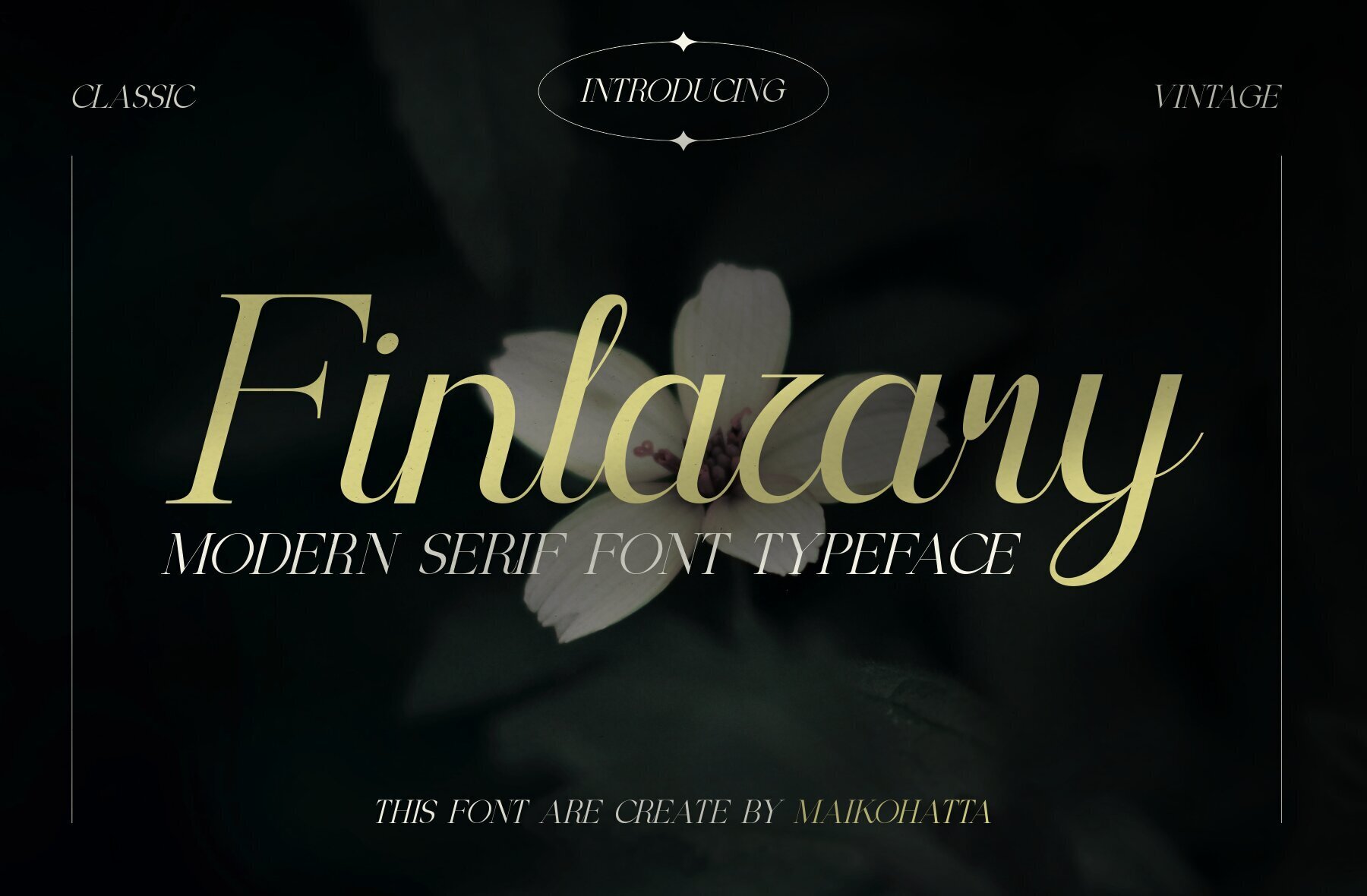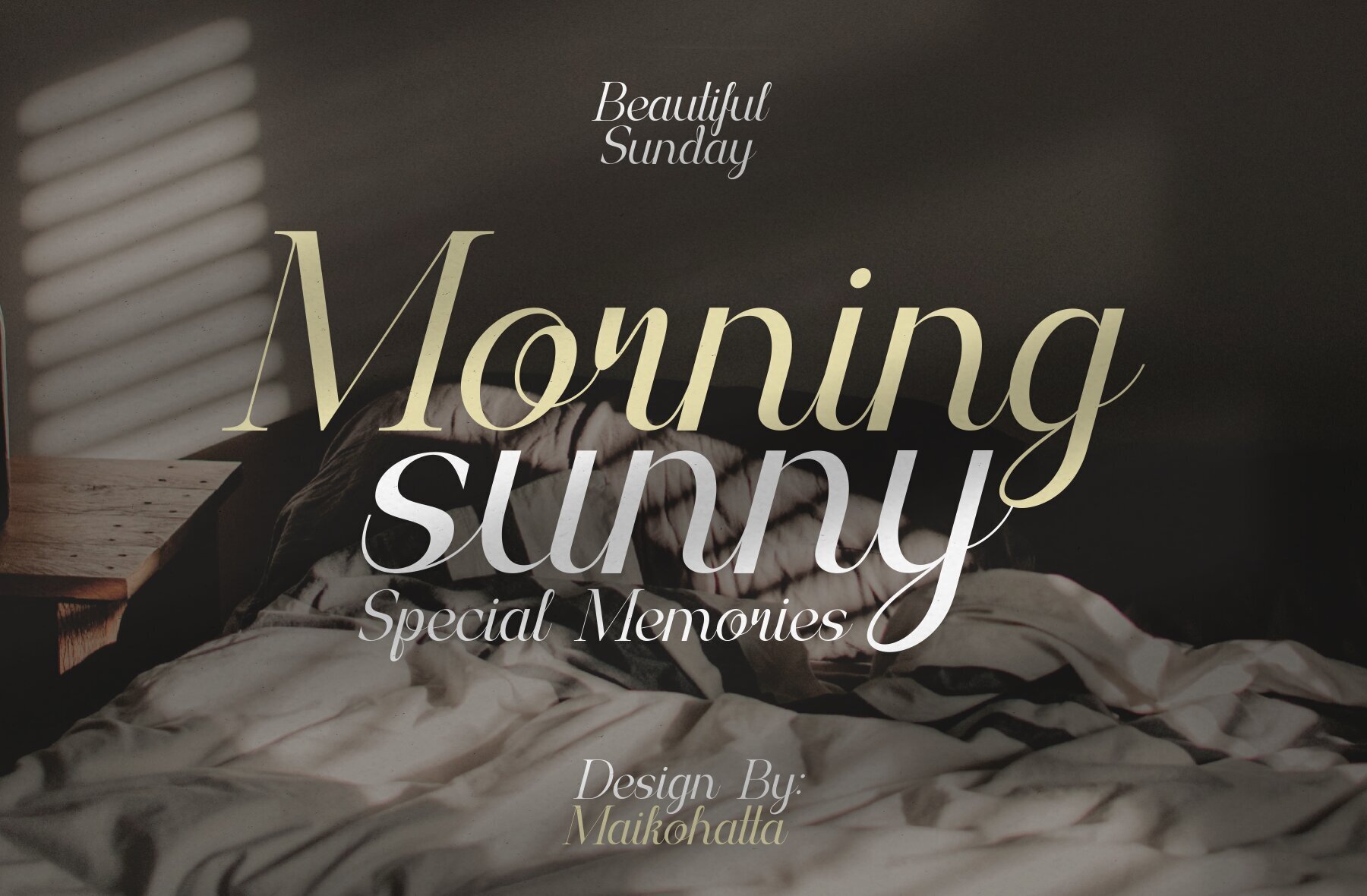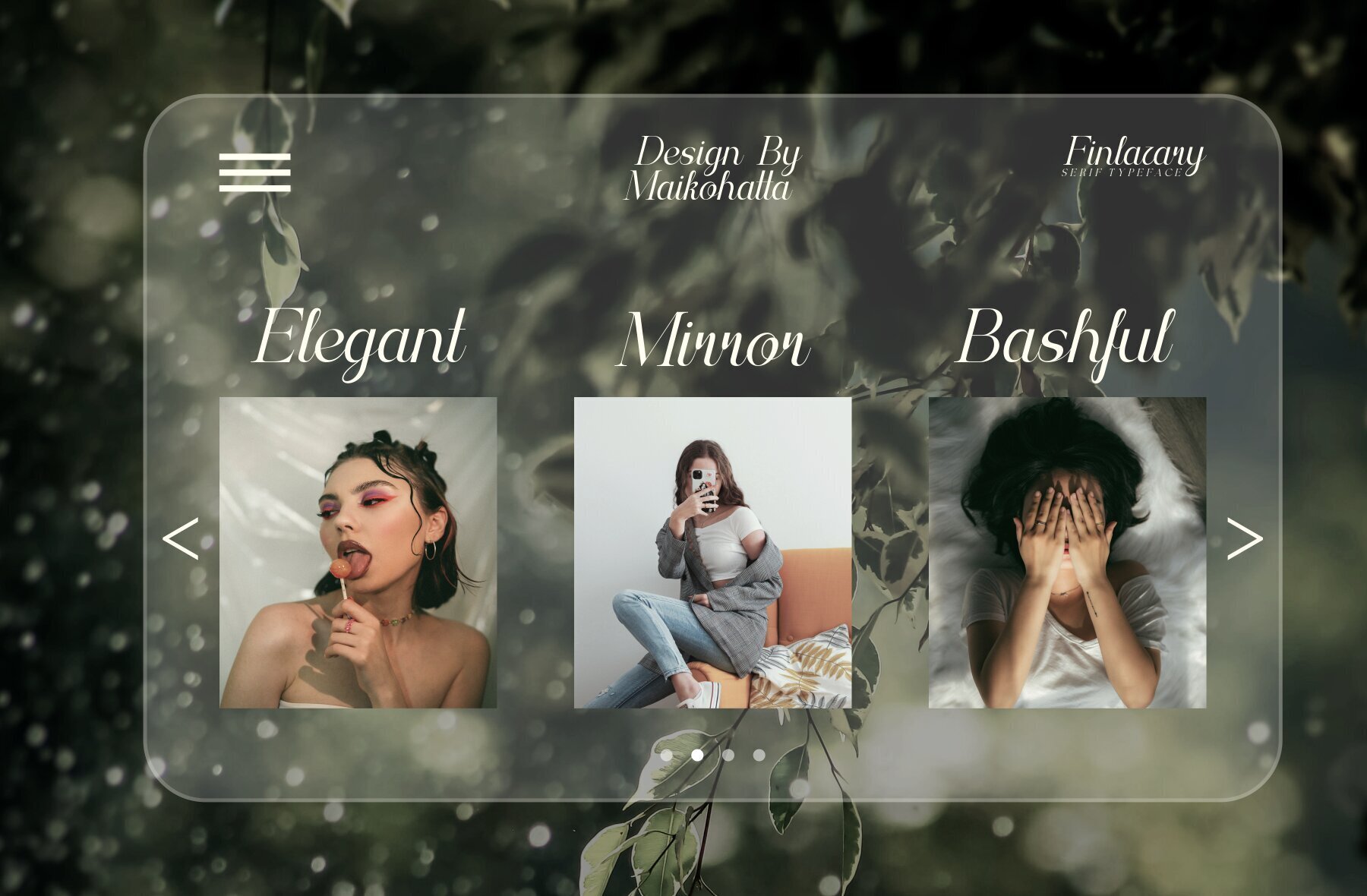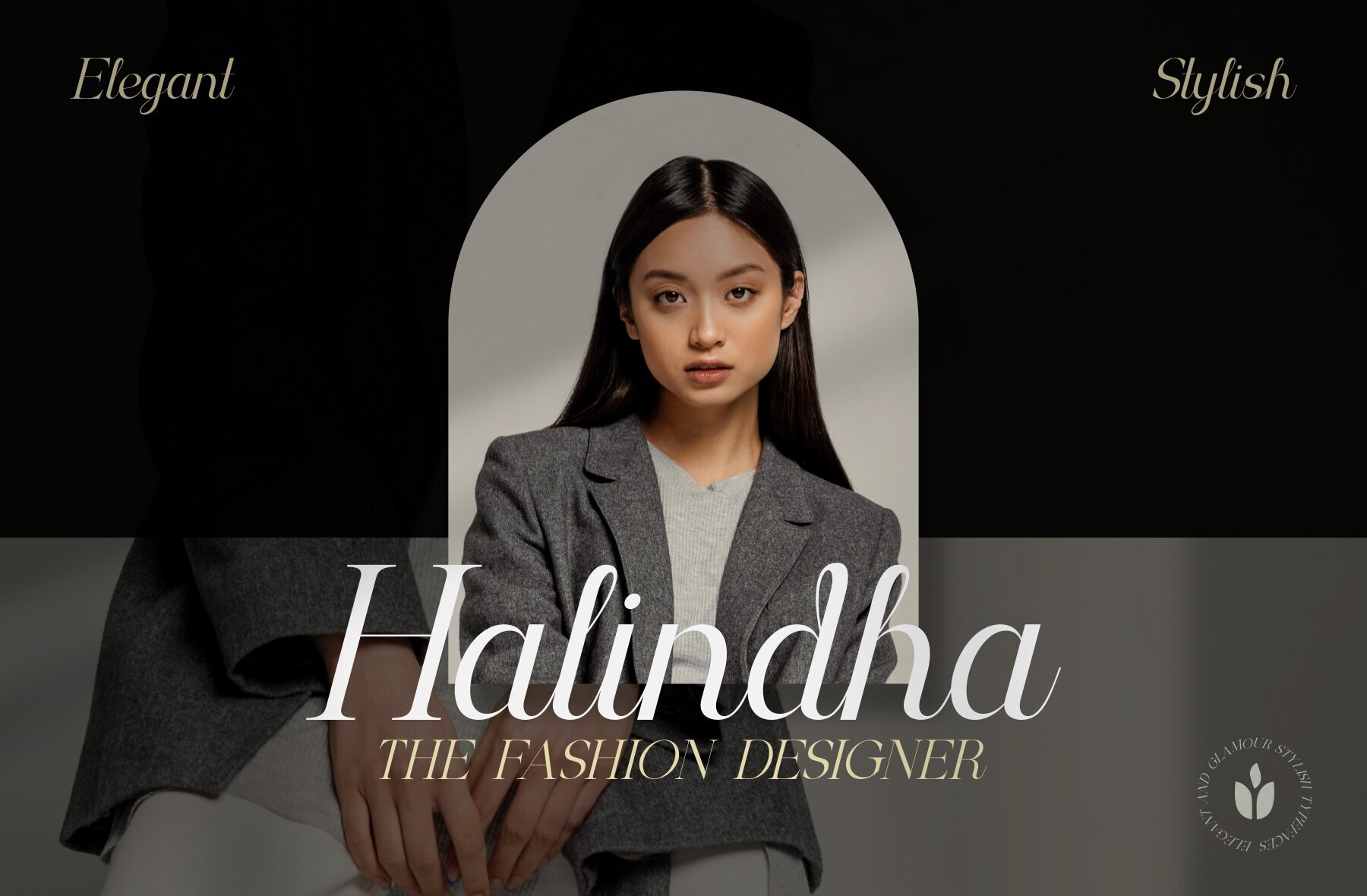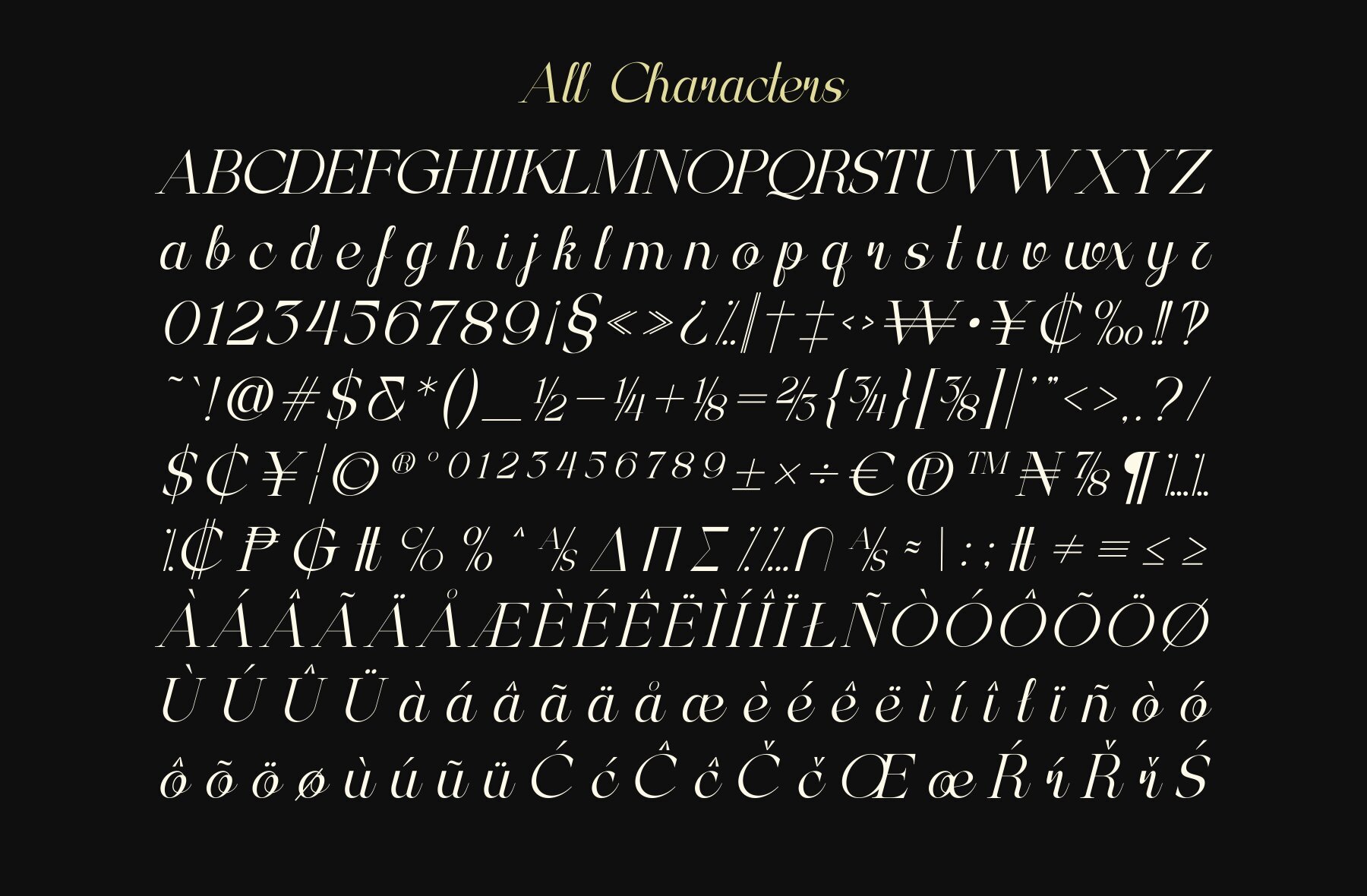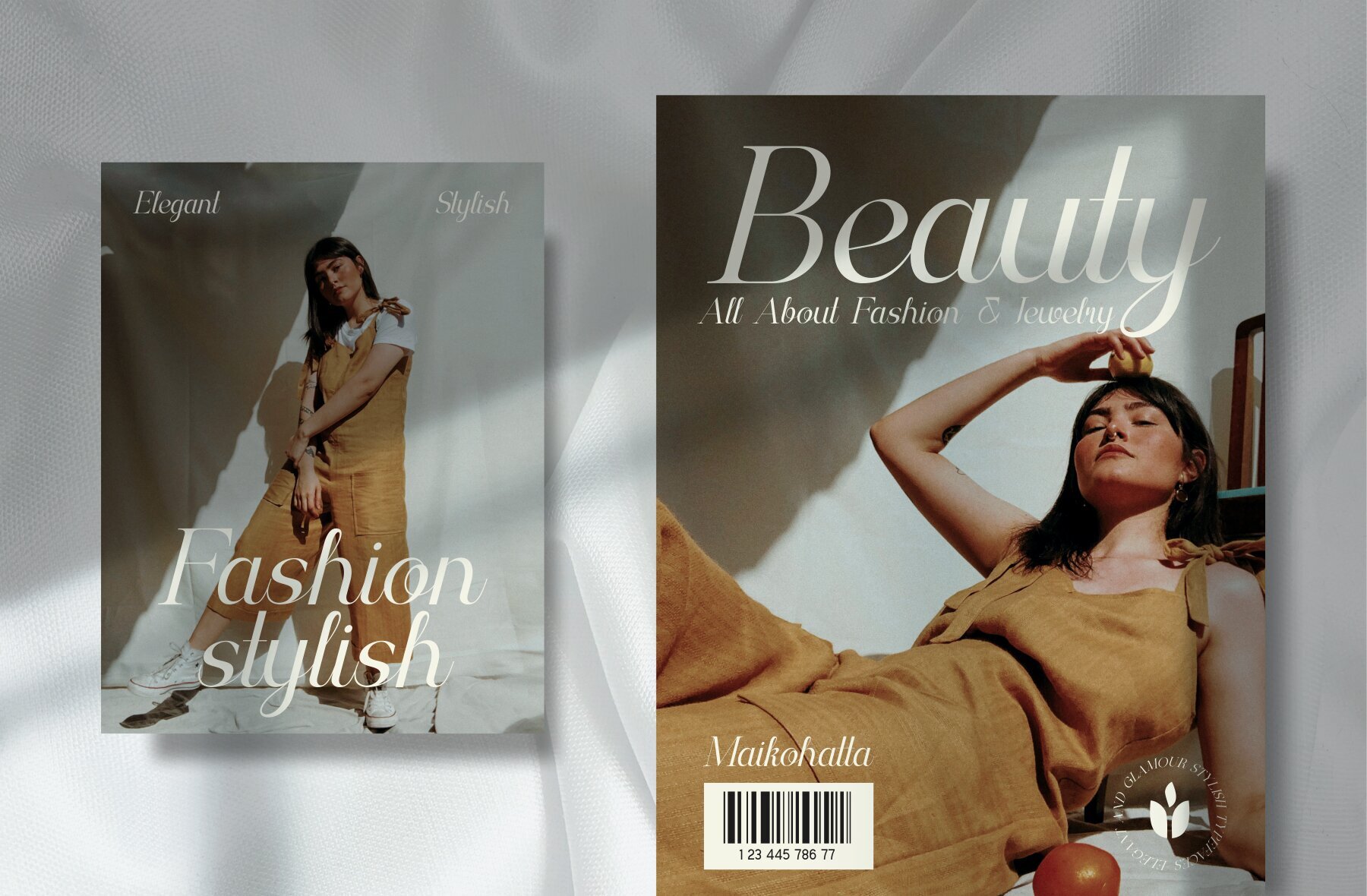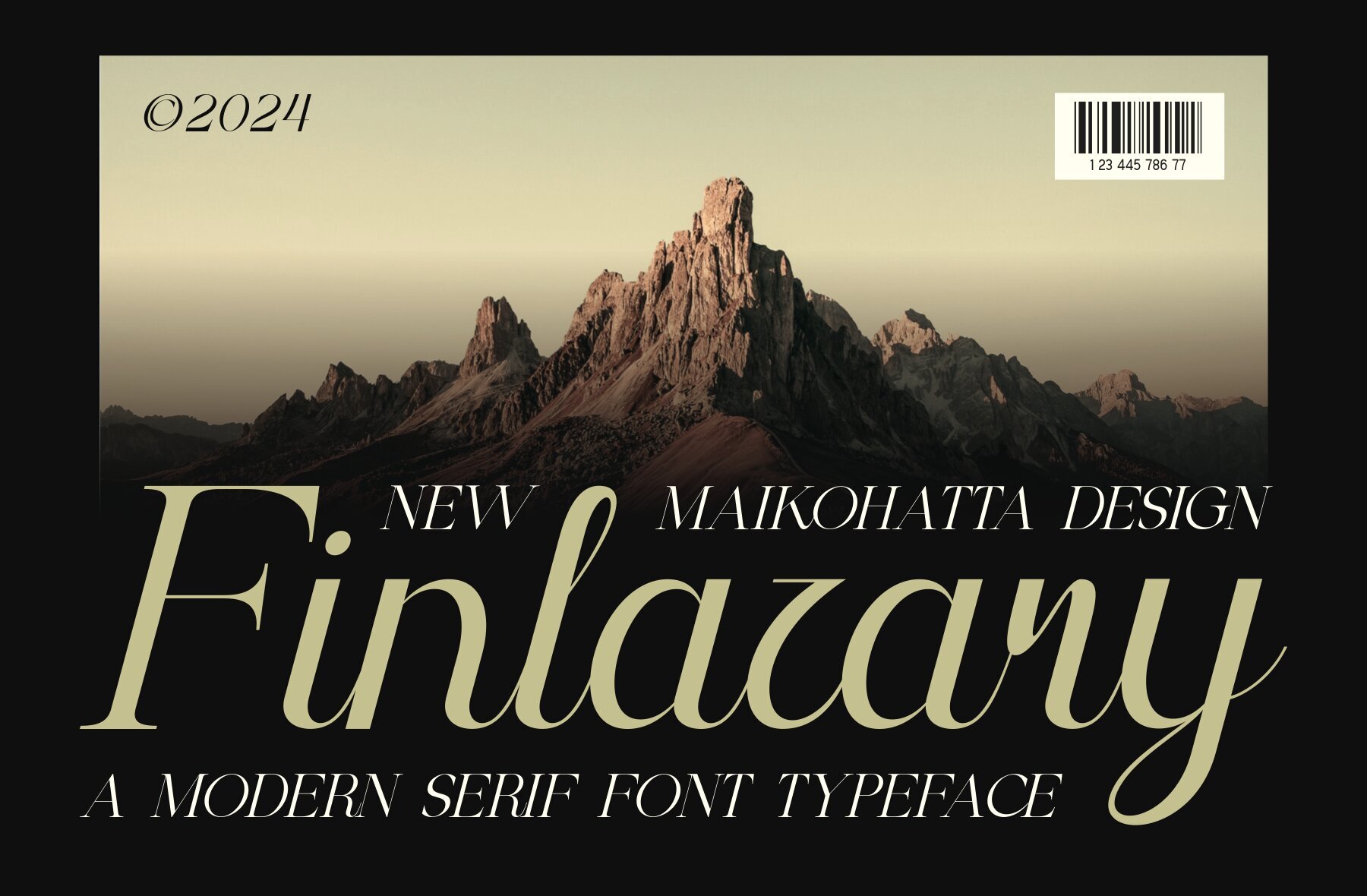
Finlazary Font
Finlazary Italic
Finlazary is a modern serif typeface that effortlessly blends classic elegance with contemporary design. Featuring a balanced proportion of stroke thickness and fineness, this font offers attractive and easy-to-read visuals.Finlazary: A Modern Serif Typeface